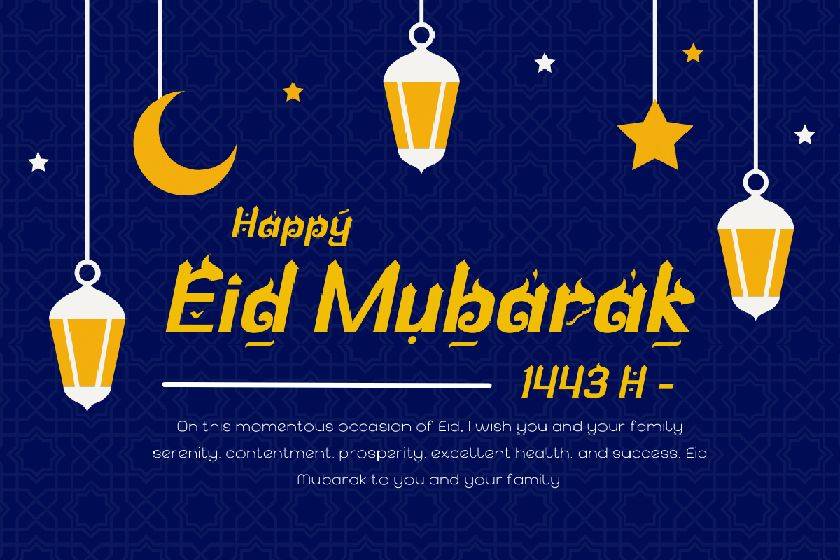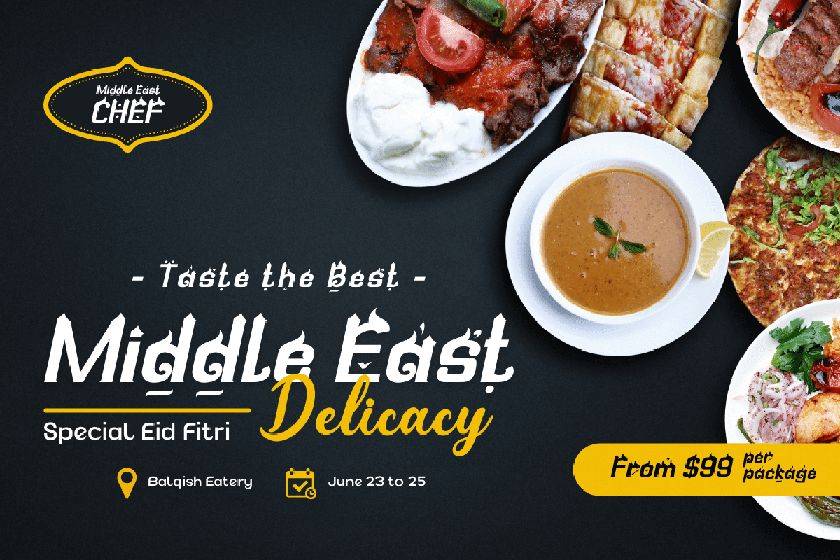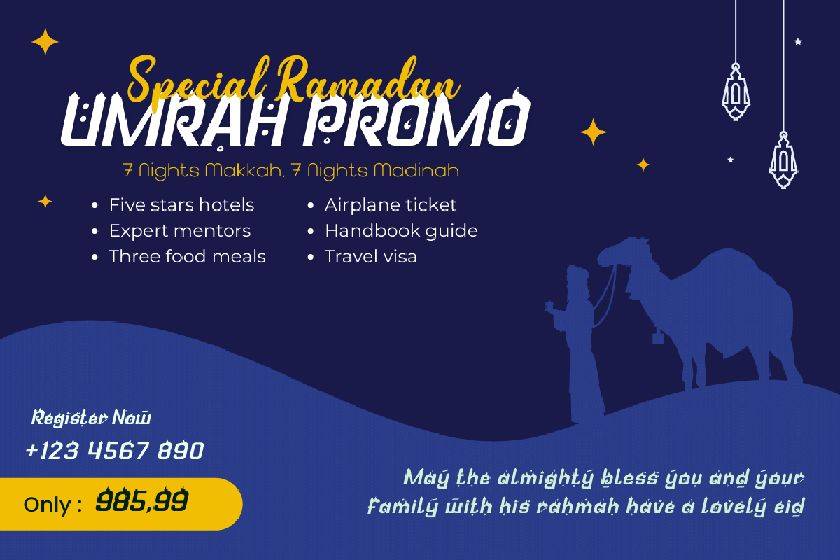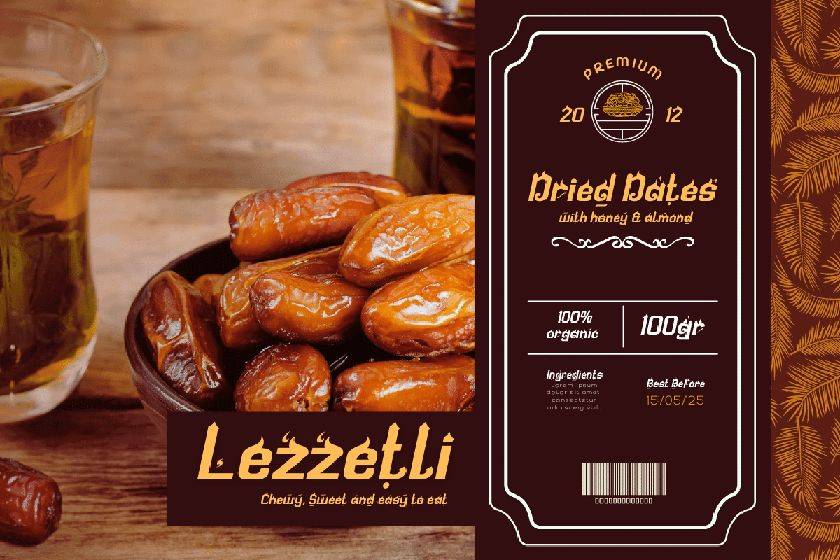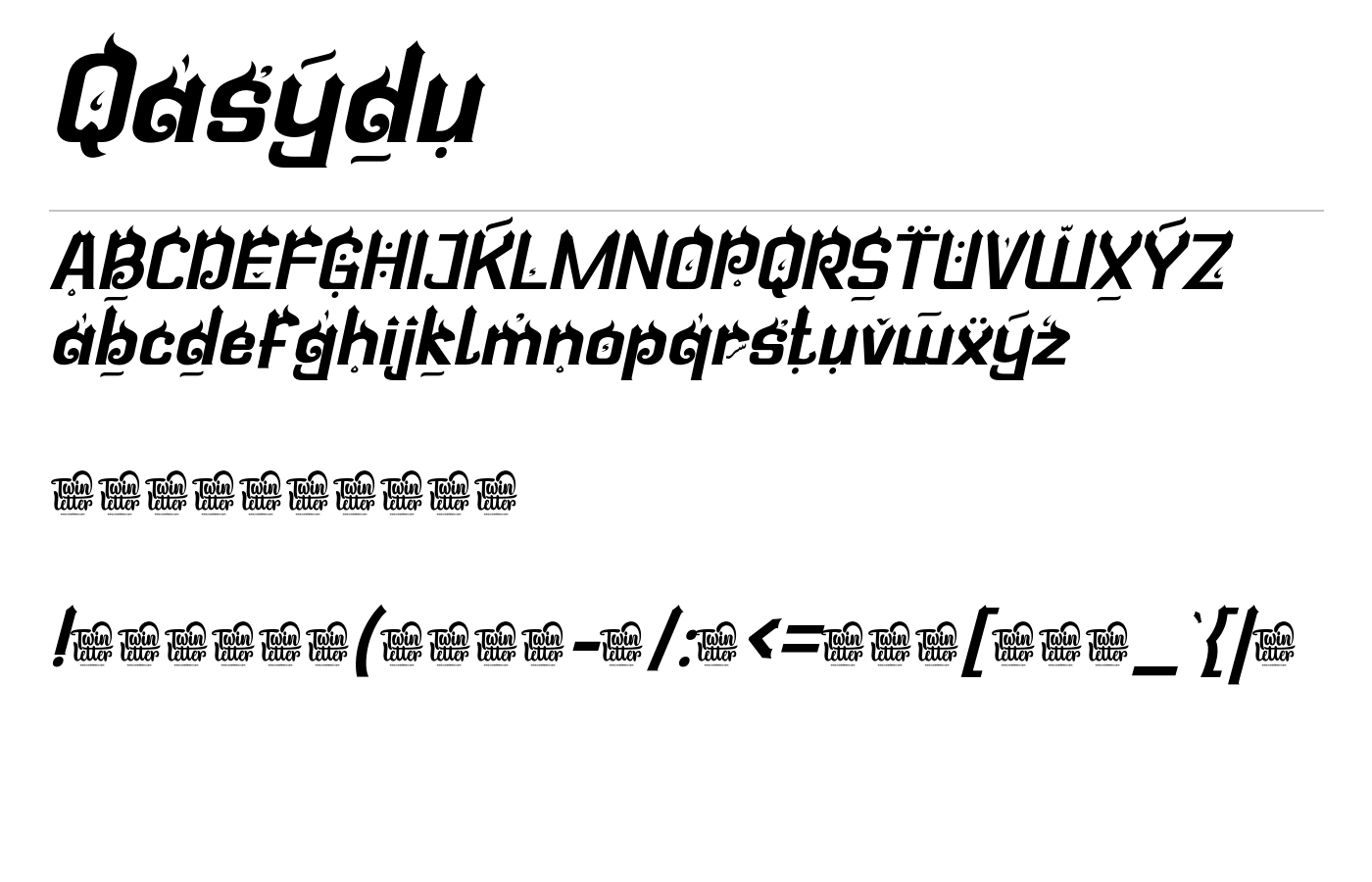
Qosydu is a bold, condensed sans serif font with a distinct, stylized flair characterized by sharp angles and decorative flame-like accents on many characters. Its dynamic, slightly italicized letterforms create a dramatic, energetic feel ideal for eye-catching headlines, logos, and branding that seek a modern yet edgy personality. This font works best where strong visual impact and unique character details can shine, making it perfect for creative projects, posters, and fashion or entertainment-related designs.
Qosydu Font
About Qosydu Font